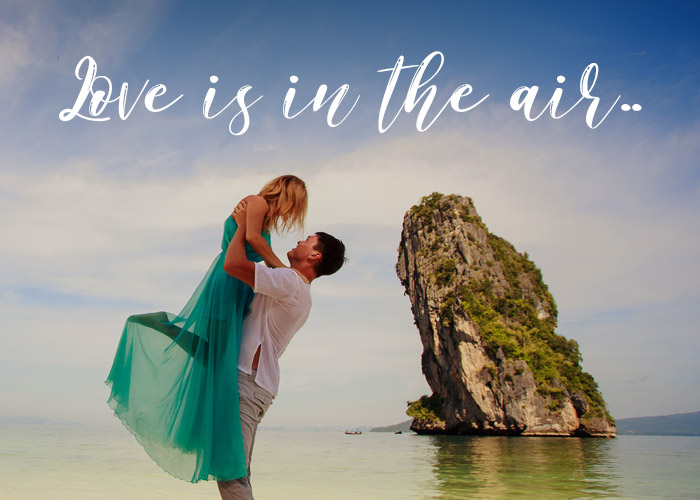
Honeymoon Free Font
Honeymoon is a handwritten Script Font that represents certainty, potency, and integrity.
Use it for social media posts, banners, thumbnails, cards & invites, and more! You can also use this for multipurpose design combined with your most original ideas to make them come to life.